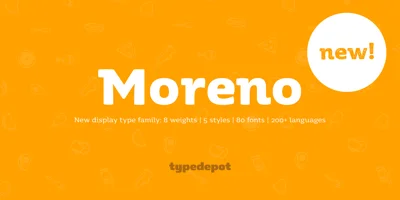
Moreno Font
Moreno Font is perfect for Latin restaurant branding, Mexican cuisine menus, Spanish cultural events, travel agency promotions, salsa dance studios, authentic food packaging, traditional craft markets, cultural festival posters, heritage museum displays, and any project requiring vibrant Hispanic flair with authentic cultural warmth.
What makes Moreno Font exciting is its passionate energy and rich cultural heritage that brings the spirit of Latin America to life through typography. The typeface features bold, expressive letterforms with warm, inviting curves that capture the essence of Hispanic tradition and contemporary vitality. Its charismatic character design radiates warmth, celebration, and authentic cultural pride, making it the perfect choice for brands and projects that want to honor Latino heritage while connecting with diverse audiences who appreciate genuine cultural expression and festive energy.
Moreno Font family includes regular, medium, and bold weights with complete Latin character support, including accented letters, Spanish punctuation, and special symbols. The typeface features carefully balanced proportions that maintain excellent readability while preserving the distinctive cultural flavor that makes each word feel like a celebration of Hispanic identity and tradition.
Whether you're designing for authentic restaurants, creating cultural event materials, or developing brand identity for Latin-inspired businesses, Moreno Font provides the perfect typographic foundation that honors tradition while embracing modernity. The font's vibrant personality and cultural authenticity make it particularly effective for hospitality businesses, entertainment venues, and community organizations. Its festive character translates beautifully across signage, packaging, and digital applications, ensuring your brand communicates warmth, authenticity, and cultural pride that resonates with Hispanic communities and cultural enthusiasts worldwide.